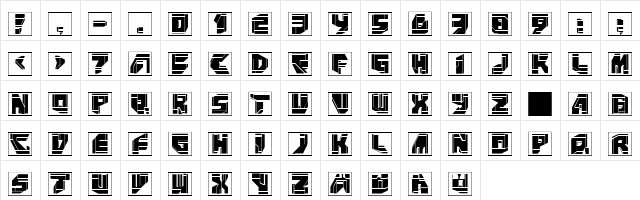
NeoPanFrames Regular Free Font
NeoPanFrames Regular
Design Context for NeoPanFrames
NeoPanFrames is a composed and adaptable typeface that performs quietly and consistently across a wide range of design contexts.
Pro Tip: Use NeoPanFrames in both headline and body roles to test its range before committing to a single application.